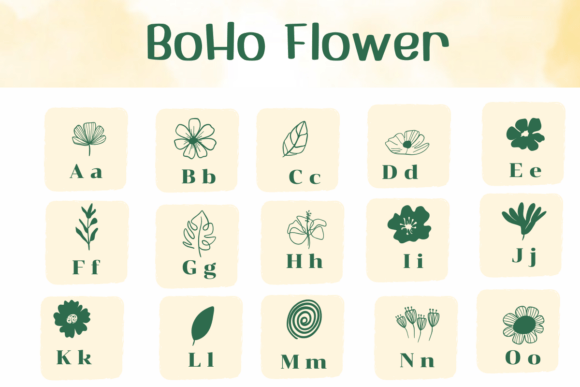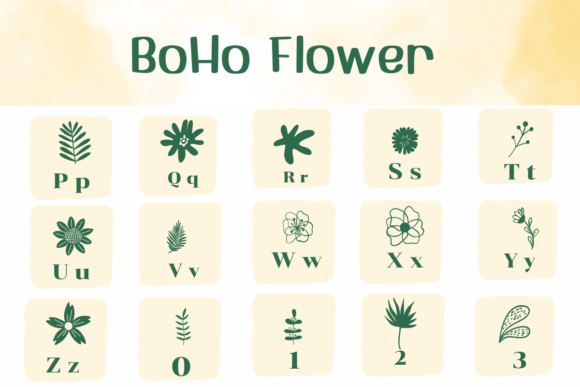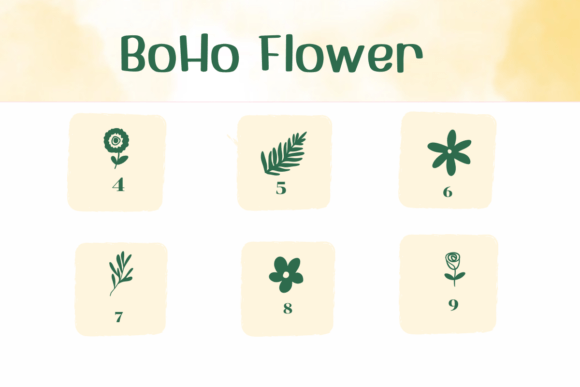
Boho Flower Font
BoHo Flower is a dingbats font with a floral theme. This font can enhance your creative projects such as wedding invitations, DIY, crafts, decorations, logos, and many other creative ideas.